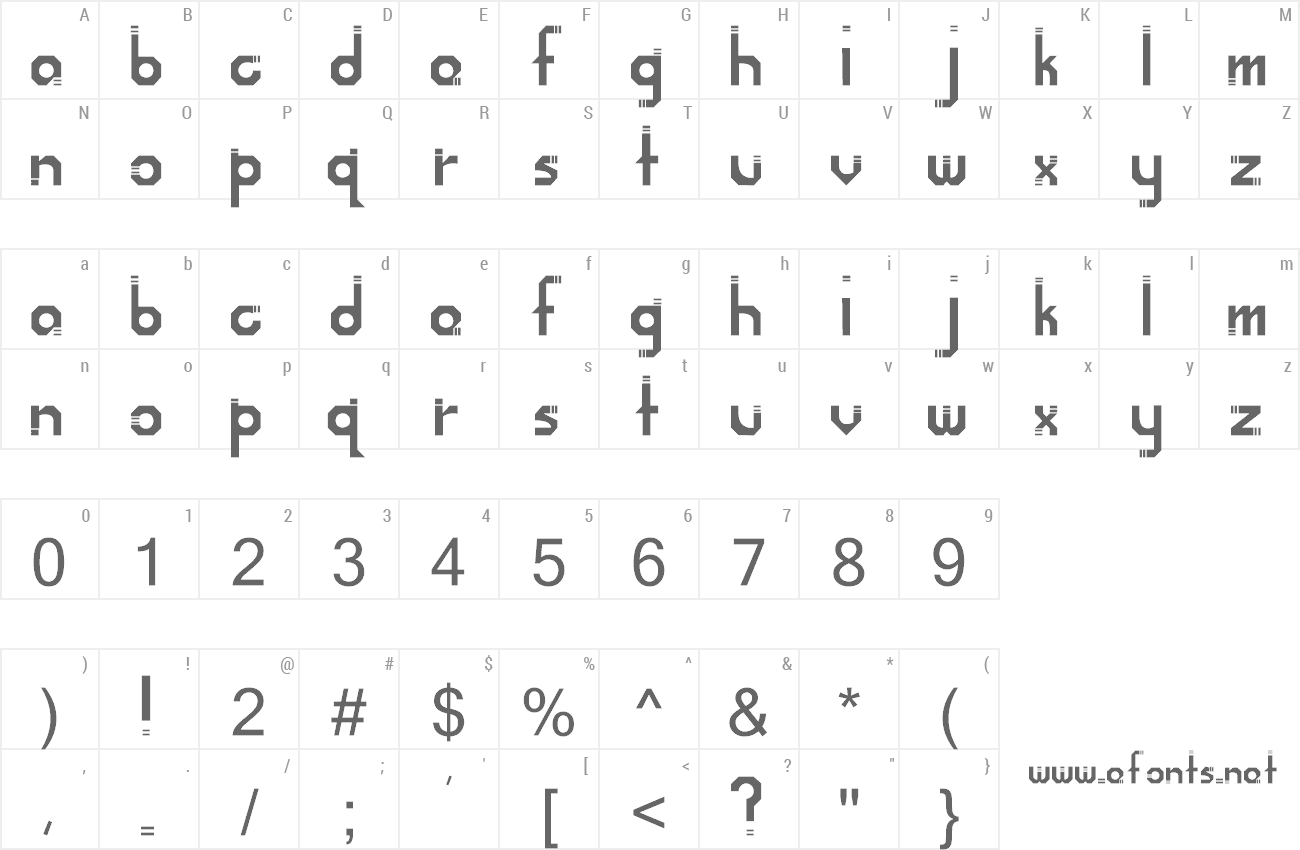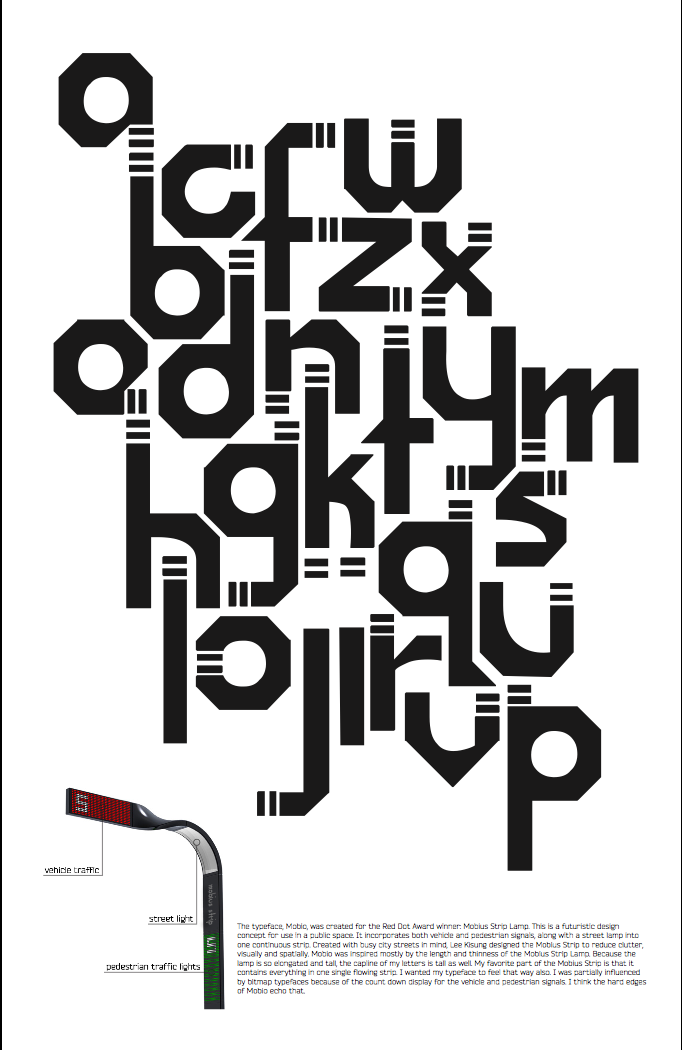
Preview and download Mobio Font. Created by Michelle McCallister in Techno Various styles
| Font name: | Mobio |
| Author: | Michelle McCallister |
| Note by Michelle McCallister | |
| The leading is horrible. Works best as a large size, probably as a title. Not good for body copy. Created for and inspired by Red Dot Award winner, Mobius Strip Lamp by Lee Kisung. |